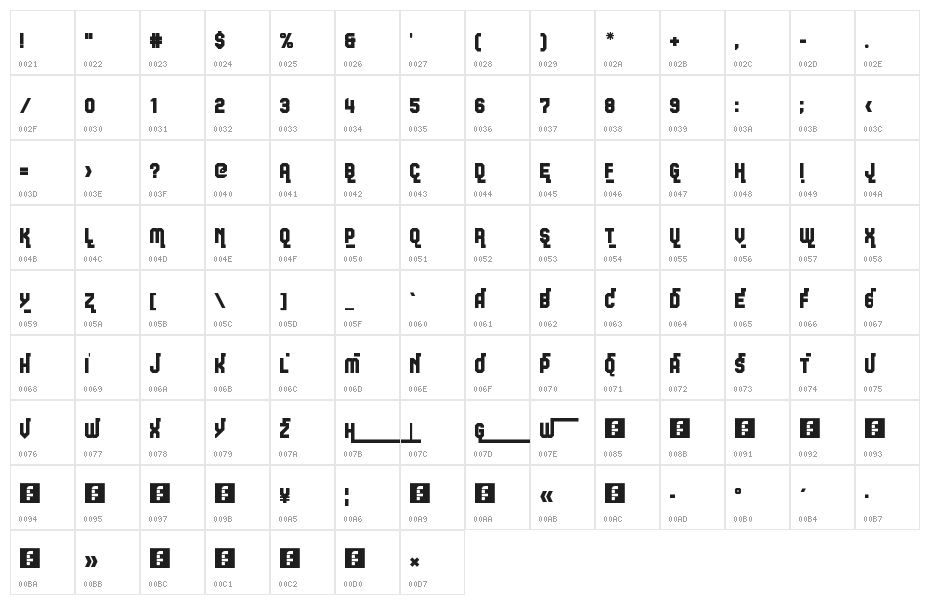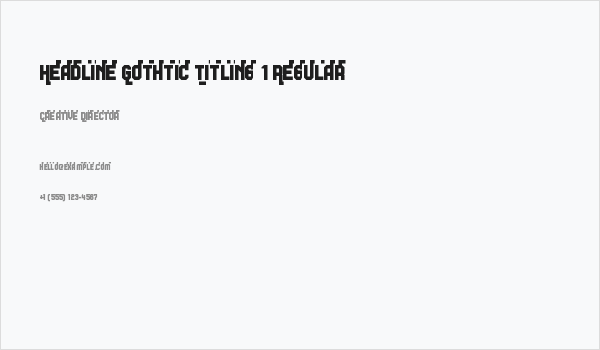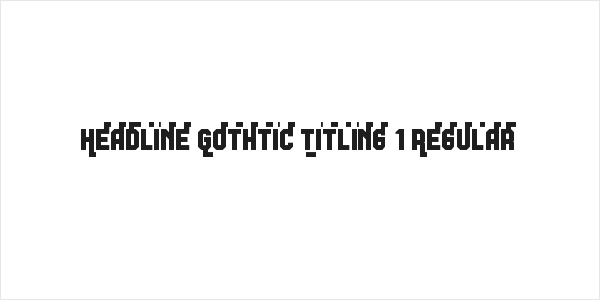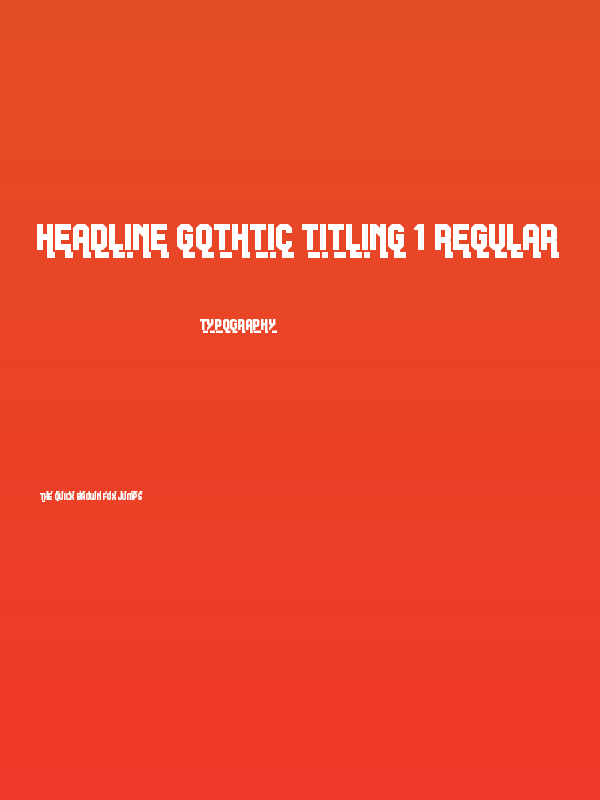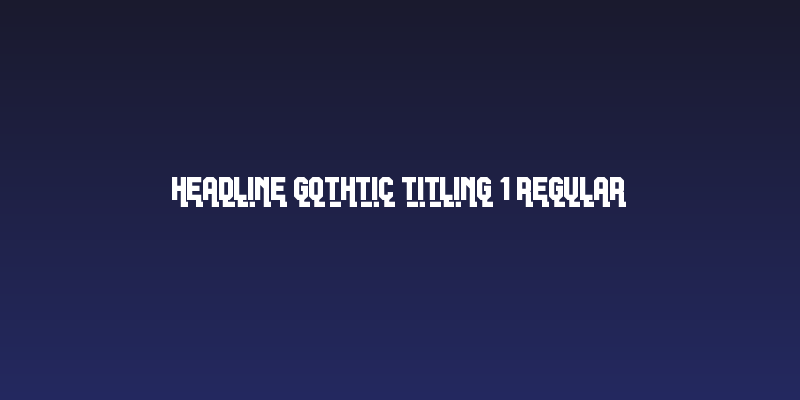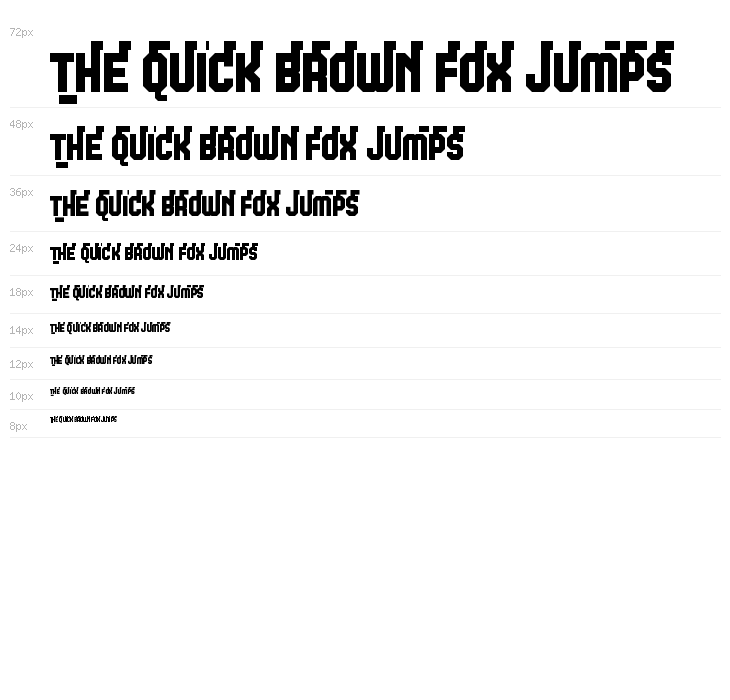
Headline Gothtic Titling 1 Regular Font
Headline Gothtic Titling 1 Regular Description
This font features a bold and striking design with a strong geometric influence. The characters are constructed with sharp angles and a blocky appearance, creating a sense of solidity and strength. The uppercase letters are particularly prominent, with a uniform height and width that emphasizes their boldness. The lowercase letters maintain the same geometric style, ensuring consistency across the typeface. Numbers and special characters are equally robust, making them stand out in any design. This font's unique style is reminiscent of Gothic architecture, with its intricate and angular forms.